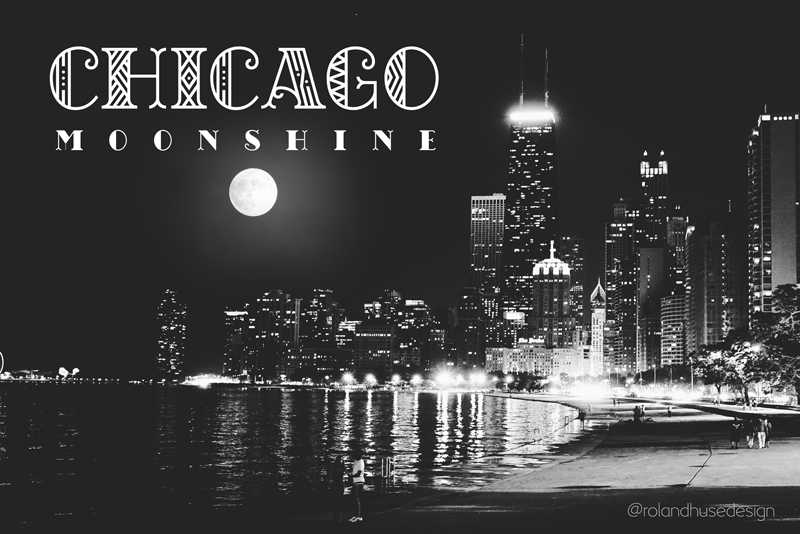
Preview and download Chicago Moonshine Font. Created by Roland Huse Design in Fancy Retro styles with Demo license.
CHICAGO MOONSHINE is an Art Deco serif All Caps display font. Please note that this is primarily for headlines, logos posters in large size. This is the demo version and is free for testing purposes and personal use. For full version and / or commercial license please visit https://crmrkt.com/pgMEmg store.rolandhuse.com The full version character set contains Western and Eastern European latin languages, basic symbols and punctuation. The Capital letters has geometric patterns and in place of lowercase letters there are filled in Capitals. Inquiries, feedback, customisation requests and/or extra characters please contact me here or via rolandhuse.com * * * Background image (taken from Unsplash) credits: Chicago at night : Prafulla Chandra https://unsplash.com/@prafulla90 Moon I photoshopped onto the night skyline: Jason Darrell https://unsplash.com/@zebedeerox * * * You may not sell these fonts or claim them as your own. edit or rename these fonts. redistribute these fonts. Find more of my works on instagram @rolandhusedesign Thank you and hope you like this font! Have a great day and good luck with your work, Roland |